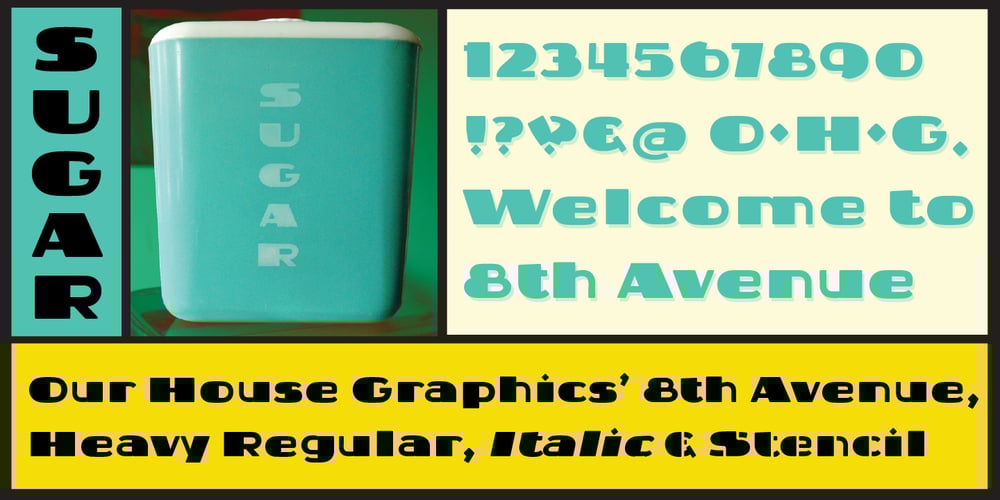
8th Avenue Font Family was designed by Russell A. McGorman and published by Our House Graphics. 8th Avenue contains 3 styles and family package options. Inspired by the strange, blocky lettering on the sides of a set of plastic kitchen containers in my childhood home, 8th Avenue is a sophisticated, somewhat syncopated font with a retro look and feel that at the same time brings a very modern attitude to your design. 8th Avenue works well as display font for packaging, headlines and logos. Those pastel turquoise plastic boxes from the early 1950s, with white screen printed letters reading FLOUR, SUGAR, COFFEE etc. on one side were a simple quiet presence in our home back then and for decades after. Seeing them, even that soft blue-green colour felt like home. SUGAR, the soul survivor of that set has become one of those mundane items of daily life that somehow become simple icons of another time, ripe with memories. Obviously I had to make a font. September 2014